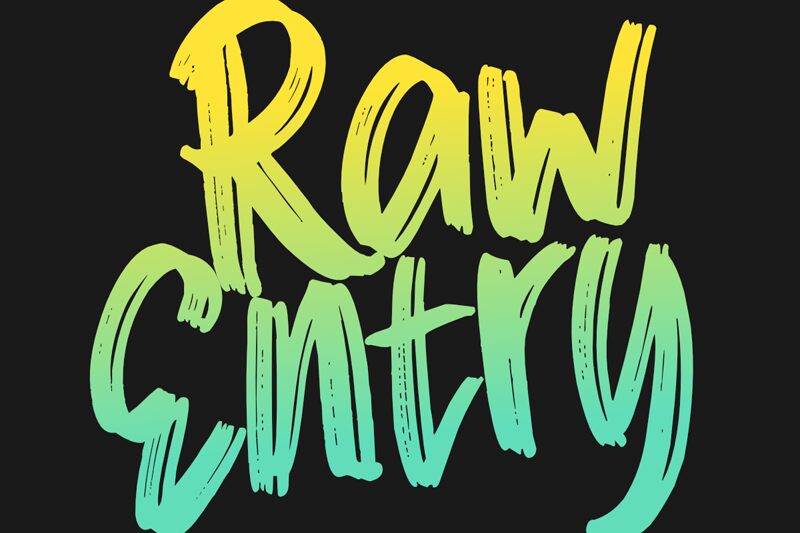
Raw Entry by epiclinez is a captivating brush font that adds a touch of edgy sophistication to any project. With its semi-bold weight and semi-condensed width, this versatile font is suitable for a wide range of creative endeavors. Whether you're designing eye-catching logos, trendy apparel, or impactful social media graphics, Raw Entry will bring your ideas to life with its bold strokes and unique character. Make a statement with this modern brush font that exudes confidence and style in every letter.